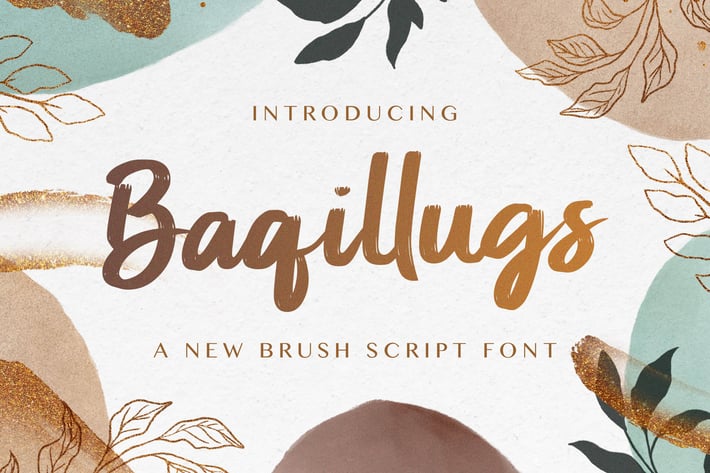
Baqillugs - Brush Script Font
Introducing Baqillugs - Brush Script Font
Baqillugs is a flowing and elegant handwritten font, created with the help of a brush pen. Get inspired by its unique and beautiful style and add it to your favorite designs!
- Swash
Baqillugs is a flowing and elegant handwritten font, created with the help of a brush pen. Get inspired by its unique and beautiful style and add it to your favorite designs!
- Swash